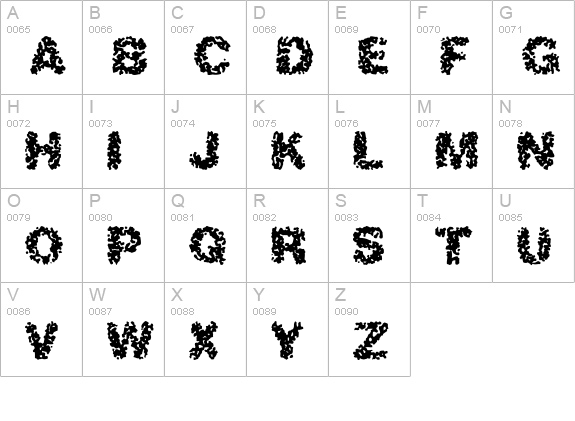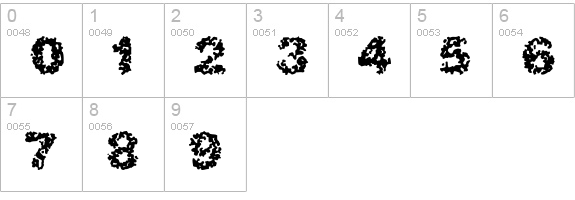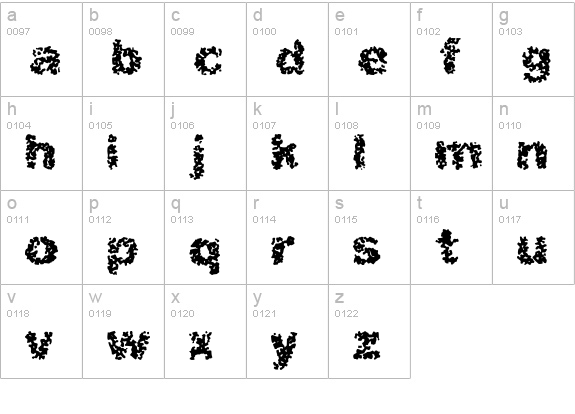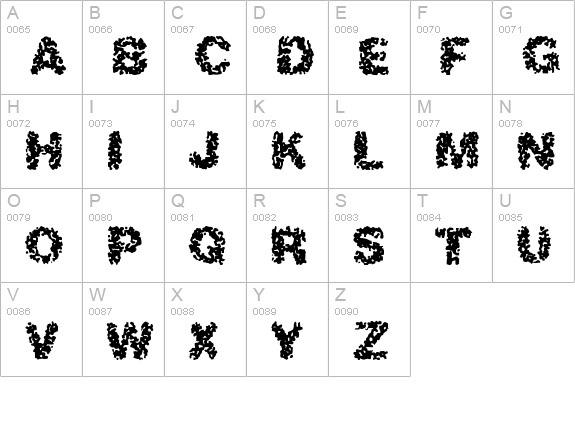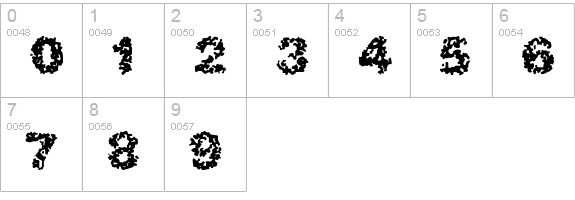
Spastic BRK Font Details
Introducing Spastic BRK Font, a captivating and dynamic typeface that exudes an energetic and edgy vibe. This font is perfect for adding a touch of modernity and excitement to your design projects. Spastic BRK Font features bold and distinct letterforms with sharp angles and exaggerated strokes, creating a visually striking and attention-grabbing effect. Its unique personality makes it an ideal choice for headlines, logos, posters, and any design that requires a bold statement. But what makes Spastic BRK Font even more appealing is that it is available for free! Yes, you heard it right. This incredible font can be freely downloaded at FontsMarket.com, allowing you to enjoy its exceptional qualities without any cost. With Spastic BRK Font, you have the freedom to explore your creative boundaries and bring your designs to life with its powerful and versatile aesthetic. Whether you're working on a high-impact advertising campaign or a cutting-edge website, this font will undoubtedly make a bold and memorable impression. Don't miss out on the opportunity to enhance your design projects with the captivating energy of Spastic BRK Font. Download it for free today at FontsMarket.com and unlock a world of creative possibilities.